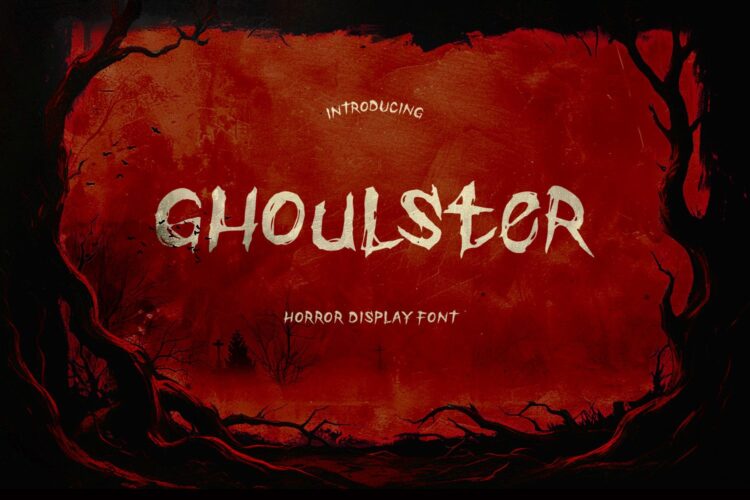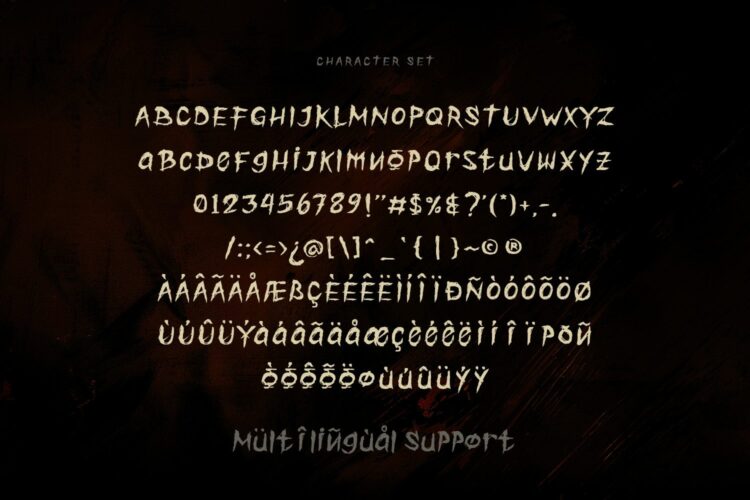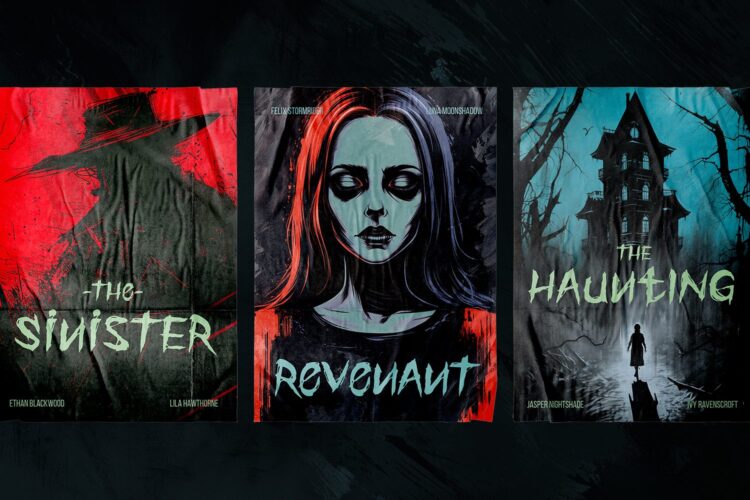
Horror Display Font
Ghoulster
Description
Ghoulster is a horror font display ideal for horror genre lovers. Perfect for any graphic design project, from logos, poster, or other graphic design projects. it’s distinctive rough strokes ensure your work stands out. It adds a touch of mysterious and scary elegance to your projects
Ghoulster – Horror Display Font